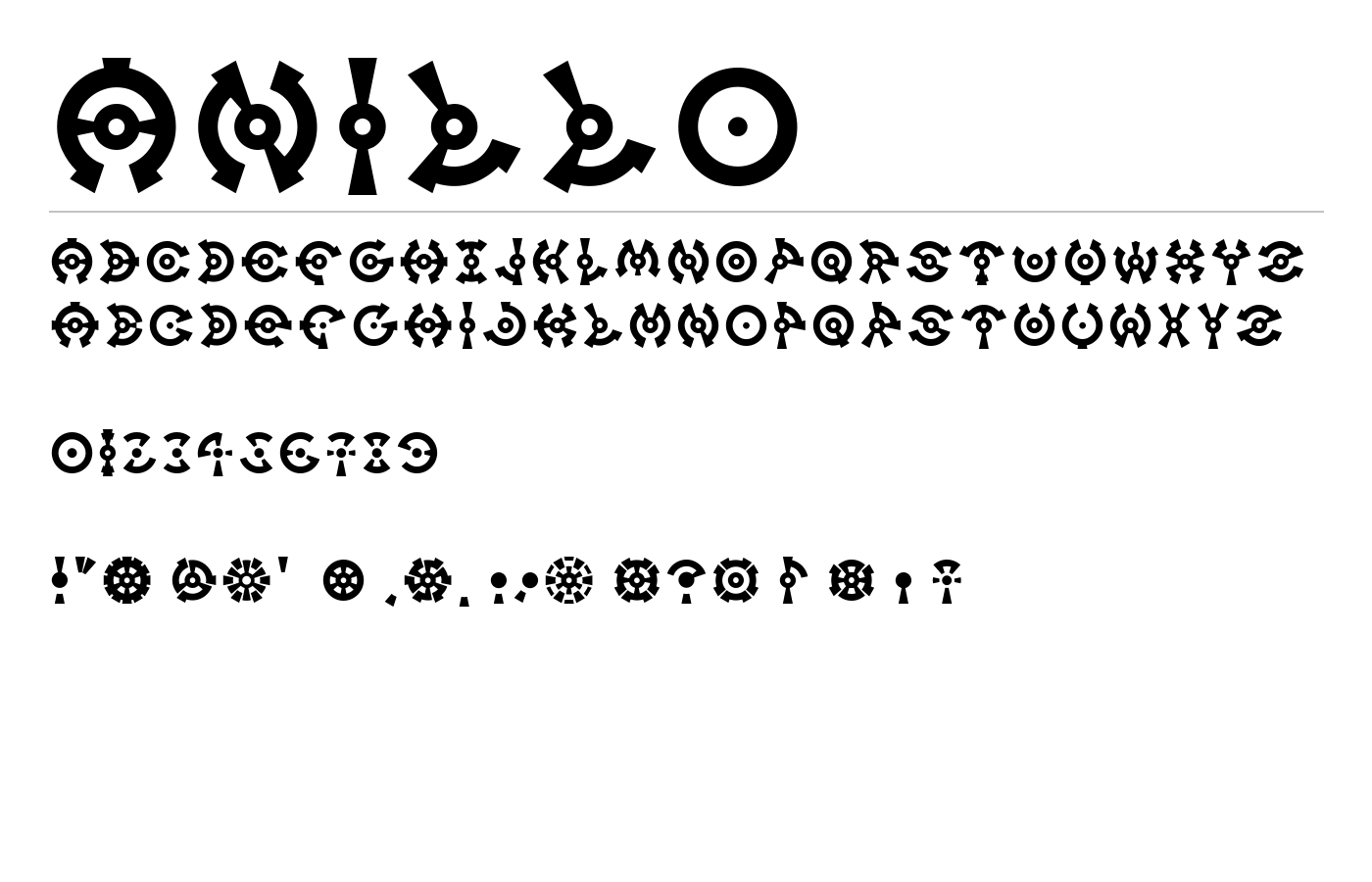
Anillo is a highly stylized, futuristic display font featuring bold, geometric shapes composed of concentric circles and angular lines. Its ornamental and abstract design gives it a sci-fi or technological vibe, making it ideal for creative logos, posters, or branding that seeks a distinct, modern look with an otherworldly or symbolic feel. Due to its unique and intricate letterforms, Anillo works best in large sizes where its decorative details can be fully appreciated.
Anillo Font
About Anillo Font
| Font family | Anillo Font |
| Designer | Aneel Nazareth |